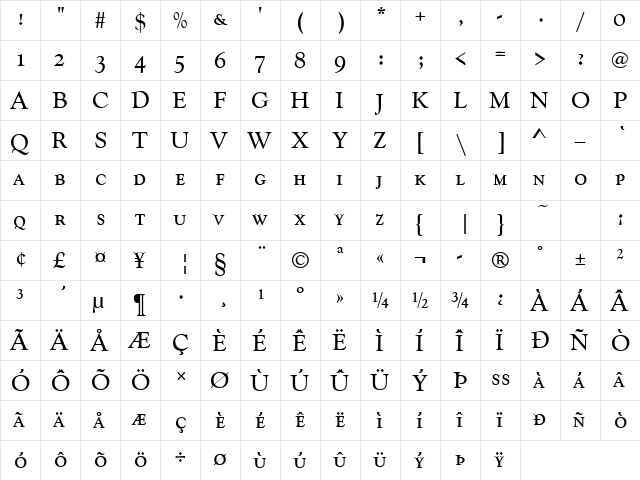
Goudy Becker Catalogue Caps Regular
Design Context for Goudy Becker Catalogue Caps Typeface
Goudy Becker Catalogue Caps offers clean, dependable letterforms without strong stylistic allegiance, making it a practical choice for designers who need flexibility.